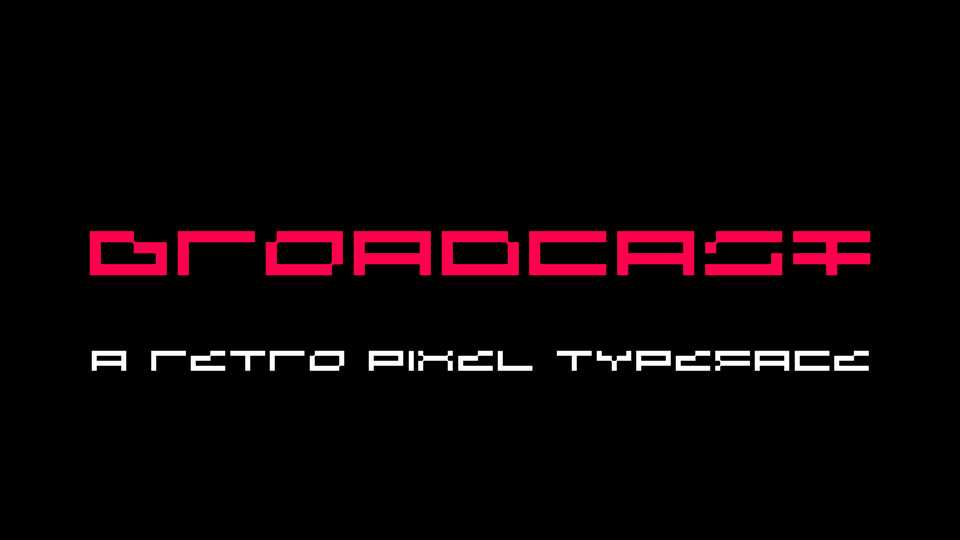
Download Broadcast font, a retro pixel inspired typeface designed by Mıchael Chrıstophersson. It was originally designed as the primary and title font for the game DISPATCH.
Designer: Aeriform